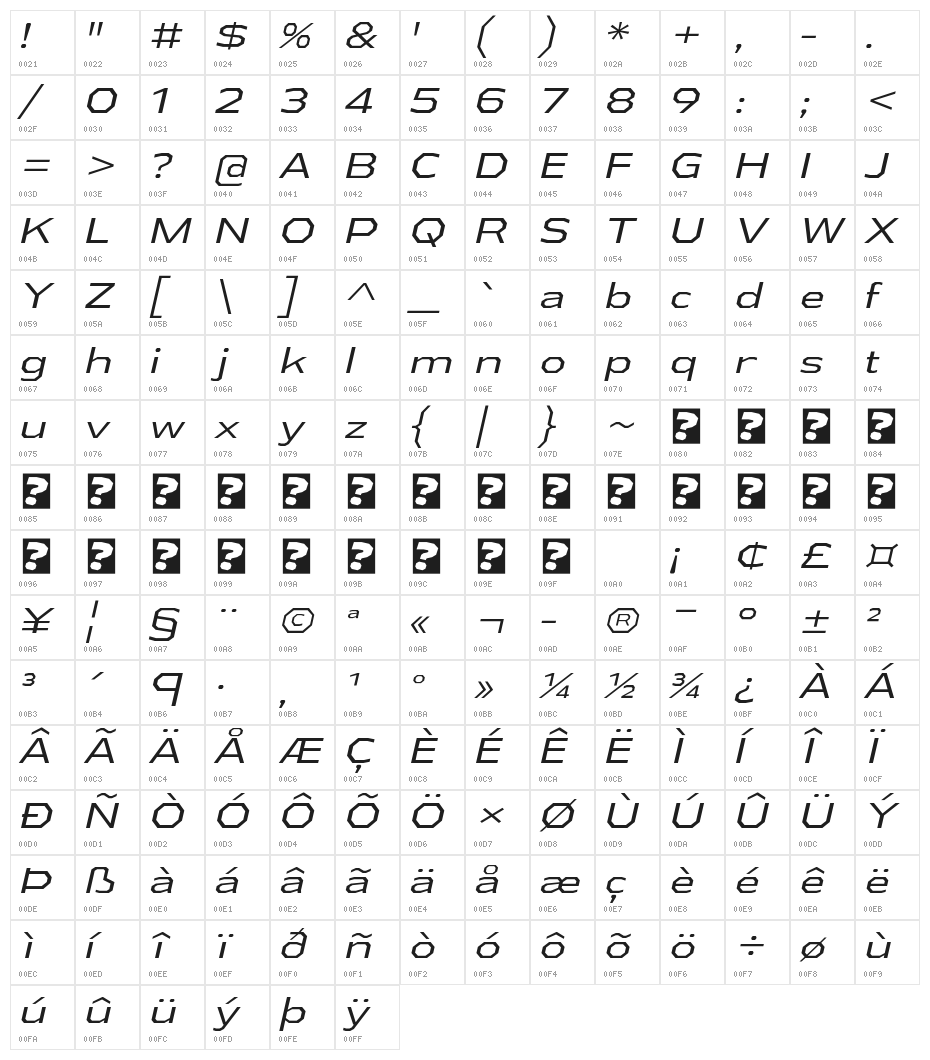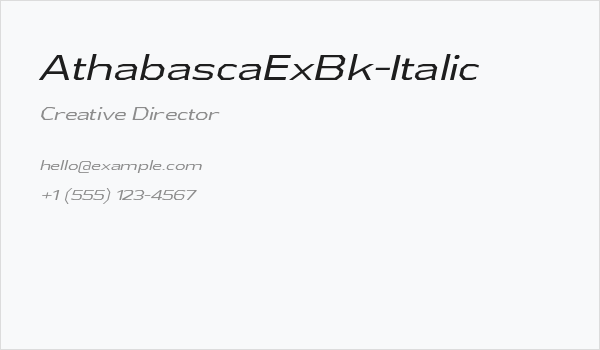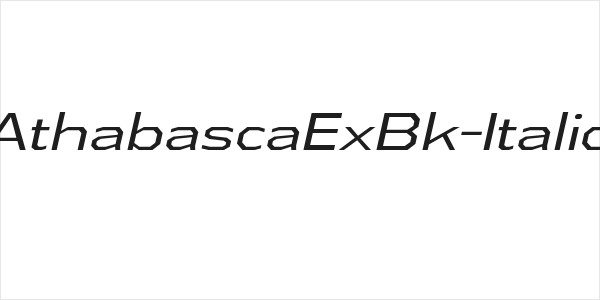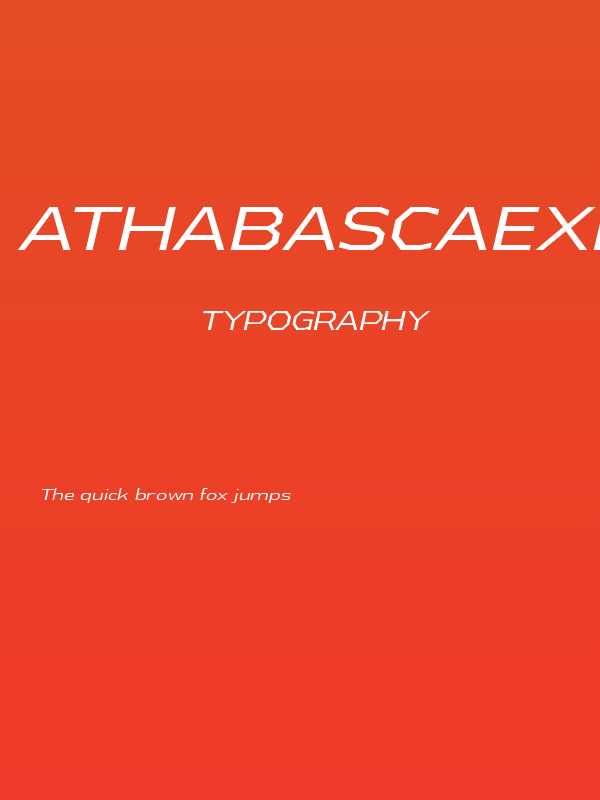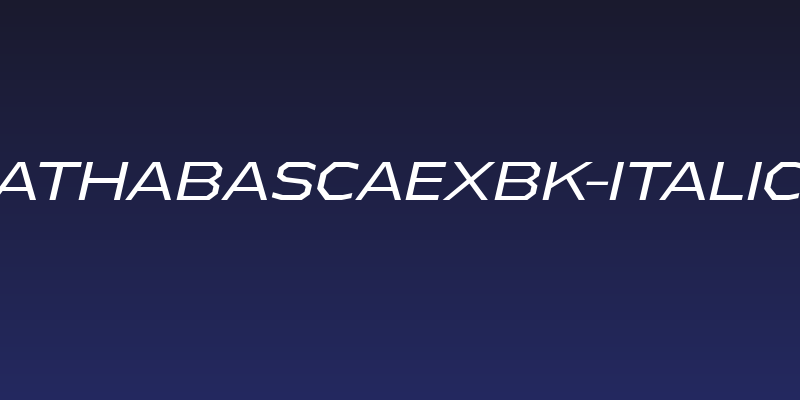
AthabascaExBk-Italic Font
AthabascaExBk-Italic Description
This font features a modern, italicized style with a geometric and angular design. The characters exhibit a consistent slant to the right, giving a dynamic and forward-moving appearance. The uppercase letters are bold and prominent, while the lowercase letters maintain a similar angularity, ensuring uniformity across the typeface. The numerals are distinct and clear, matching the overall geometric theme. Special characters are well-integrated, maintaining the font's unique style. The strokes are consistent in weight, providing a balanced look without high contrast. This font is suitable for projects that require a modern and technical aesthetic.
| Proposed Projects | Ideal for technology branding, modern advertising, and dynamic logo designs. |